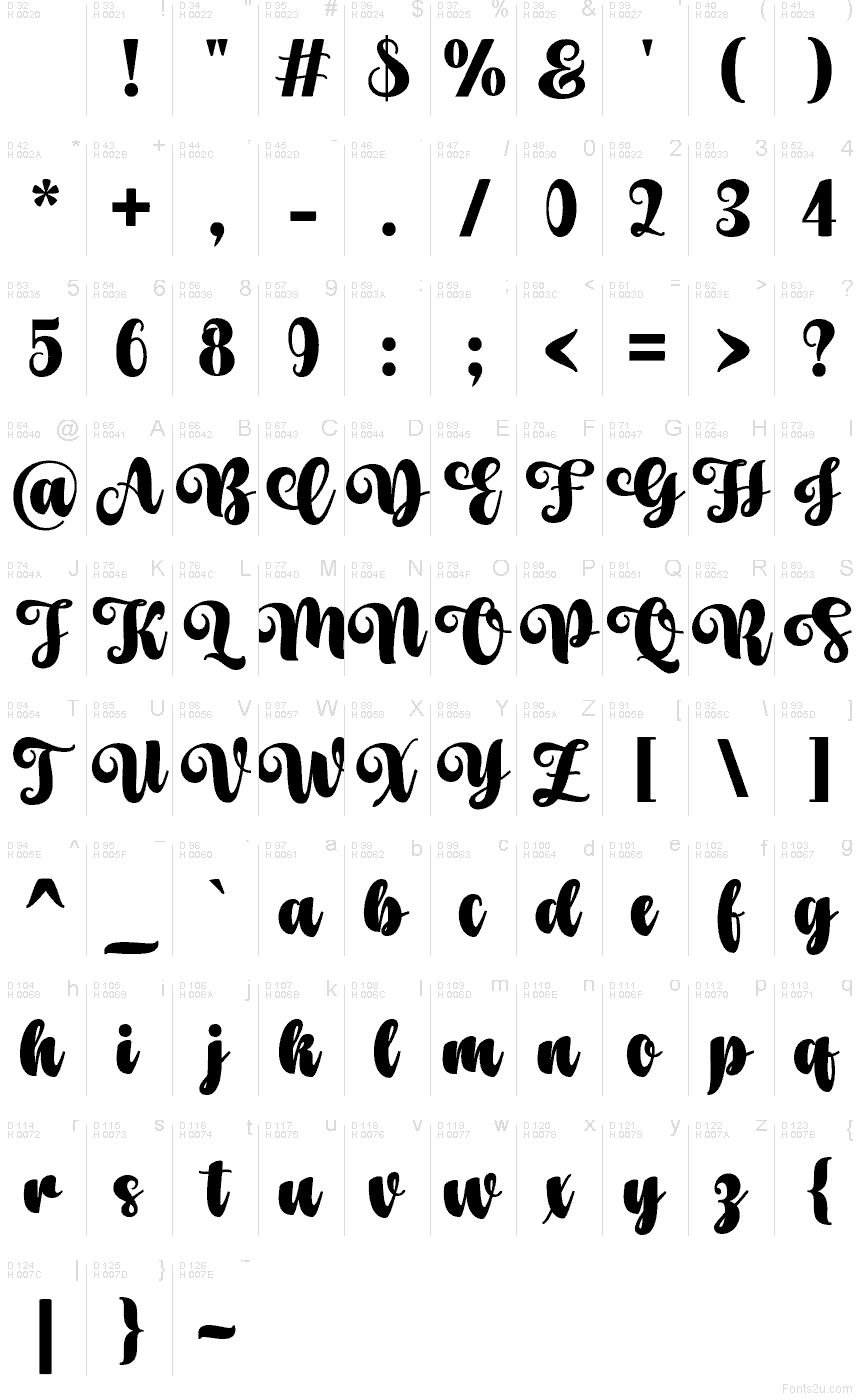
Reyla Regular
Reyla font by Wais Alqarni of Ws Studio is a free brush script typeface with big, inky curves and confident, sweeping strokes. Its bold, swirling capitals melt into smooth, rounded lowercase letters, creating a hand-painted feel that’s both playful and polished. The dense black shapes and generous curves give every word a sense of movement, like fresh paint pulled across textured paper.
Using Reyla, this free font instantly adds personality to logos, product packaging, wedding invitations, signage, social media quotes, and apparel graphics. The letters connect with a natural rhythm that reads clearly even at larger sizes, making it great for statement headlines and wordmarks. For balance, pair Reyla with a clean sans serif for body text and let this brush script handle the names, titles, and punchy phrases.